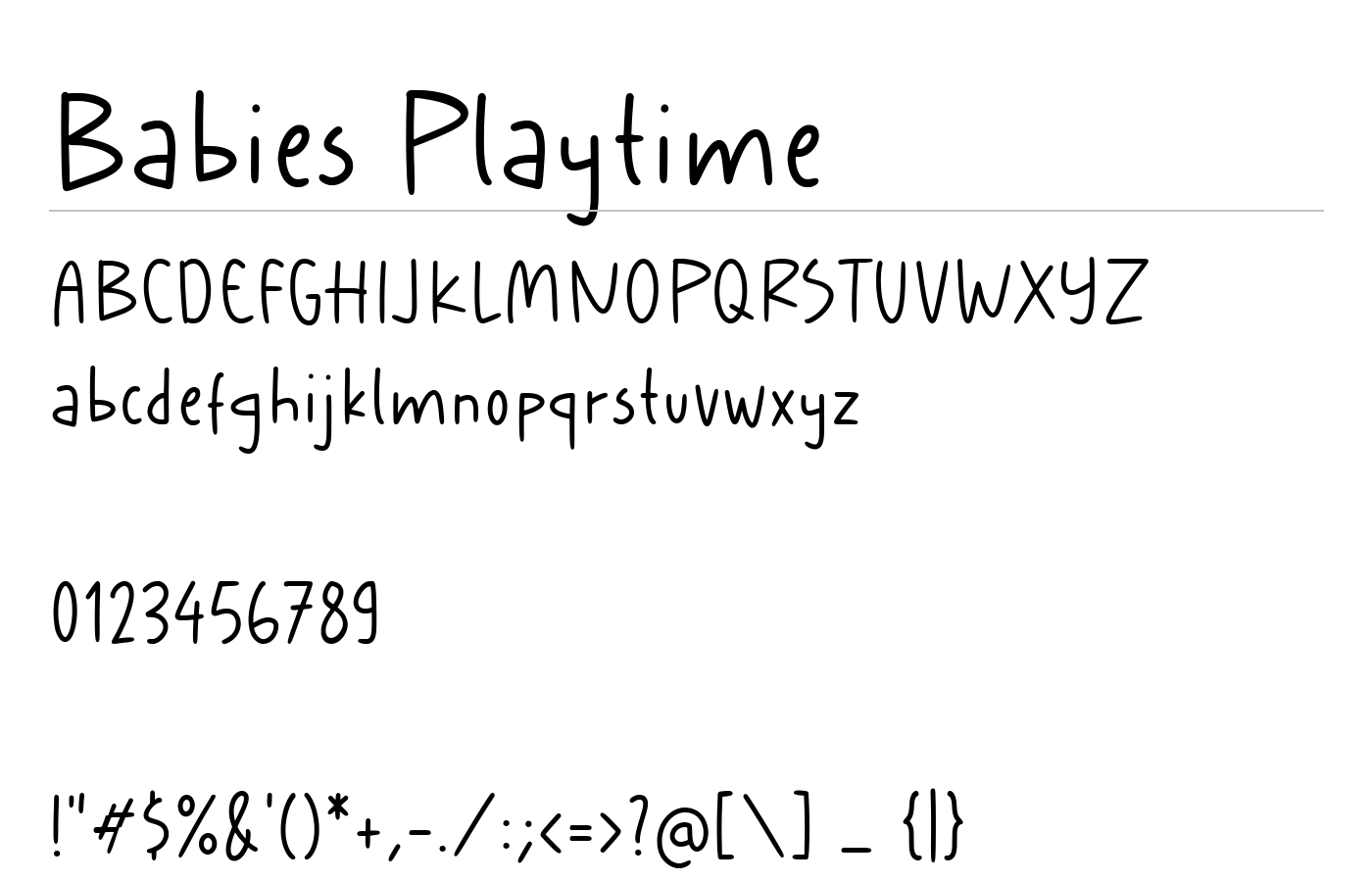
Babies Playtime is a playful, handwritten sans serif font with a casual, friendly feel. Its tall, narrow letterforms and uneven stroke widths give it a childlike charm, making it perfect for children’s books, playful branding, and informal designs that need an approachable, fun vibe. This font works well for headlines and decorative text where a lighthearted, personal touch is desired.
Babies Playtime Font
About Babies Playtime Font